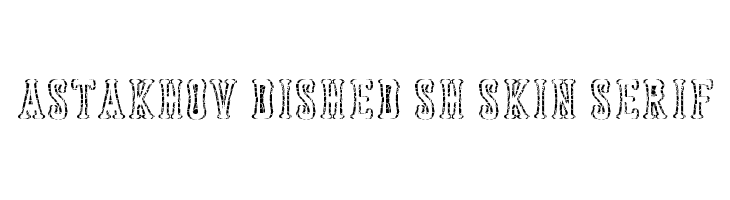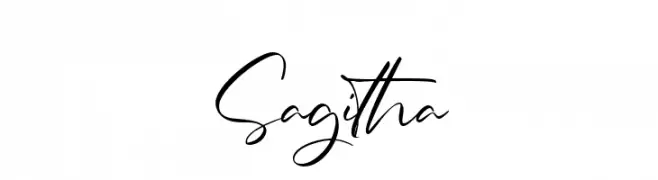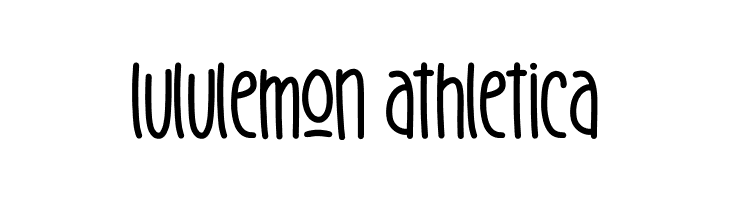
A bold, hand-drawn font with a lively and energetic style.
A playful, handwritten font with bold strokes and a lively, casual style.
A dynamic, expressive handwritten font with bold, fluid strokes.
An elegant, flowing script font with ornate uppercase and smooth lowercase characters.
A bold, blocky font with tight spacing and a modern, impactful style.
A decorative hollow font with intricate curves and open spaces, perfect for creative projects.
A flowing, cursive font with elegant, connected letters and a natural handwriting style.
A bold, distressed font with a rugged, grunge-like appearance.
A playful, hand-drawn font with a casual and artistic style.
A jagged, scratch-like font with a raw, edgy aesthetic.